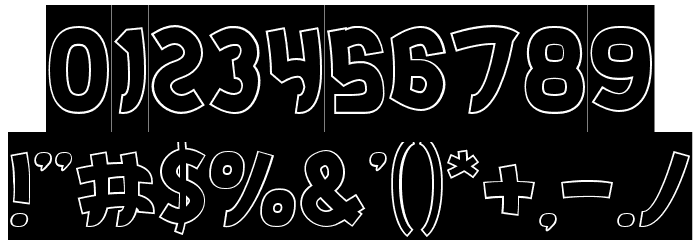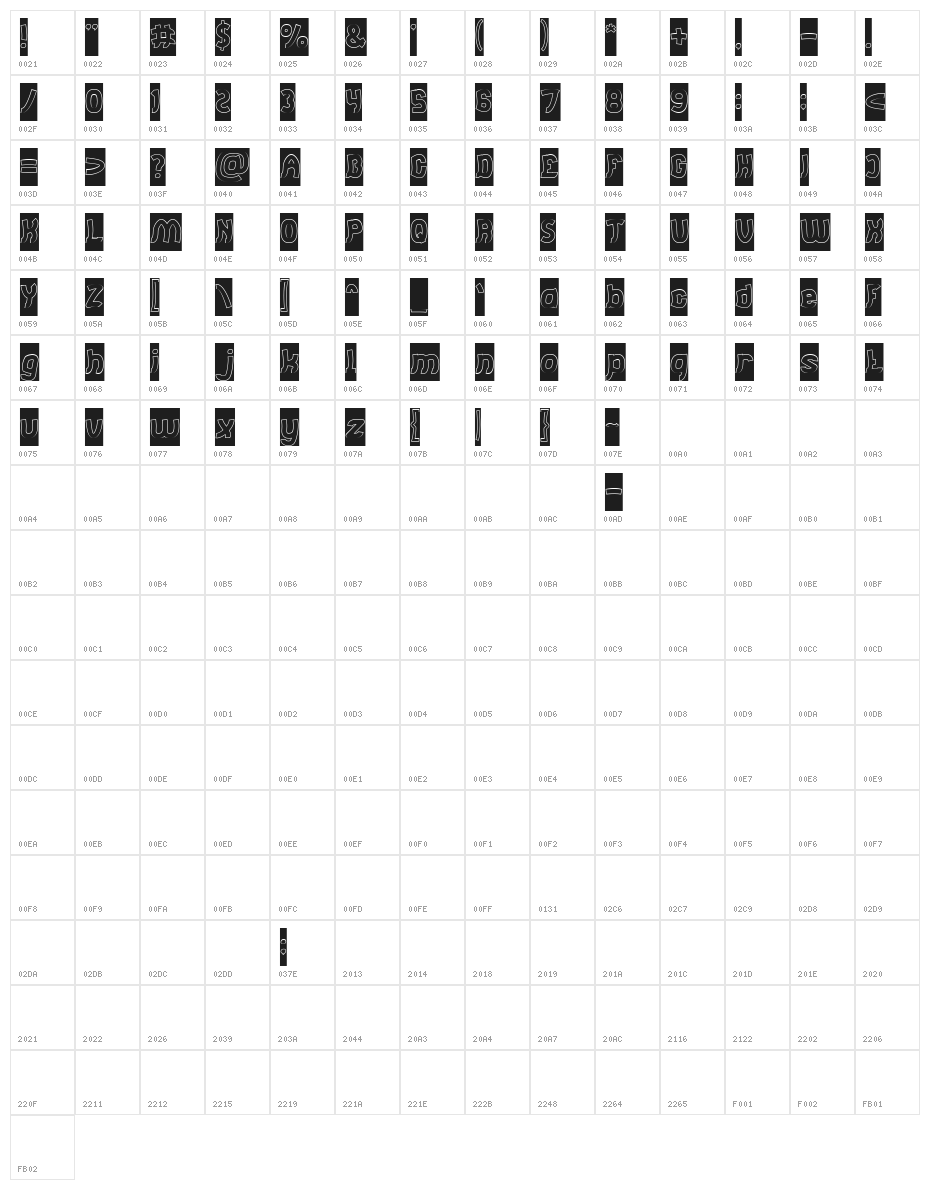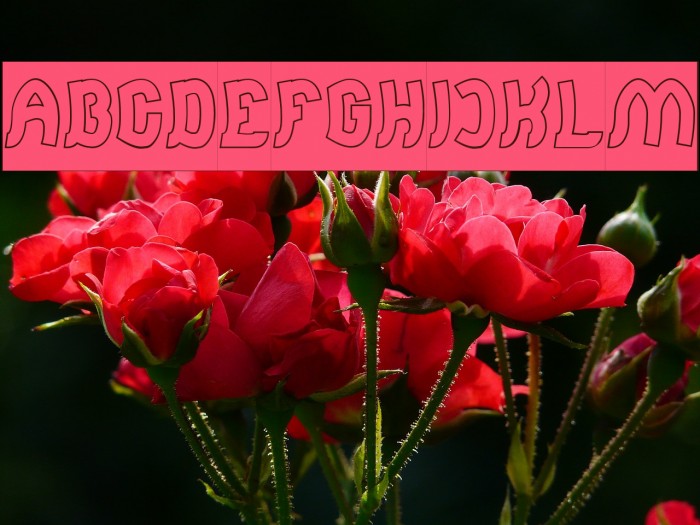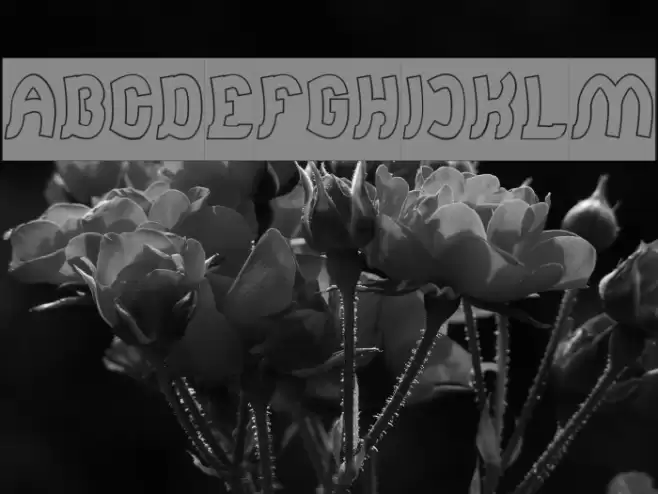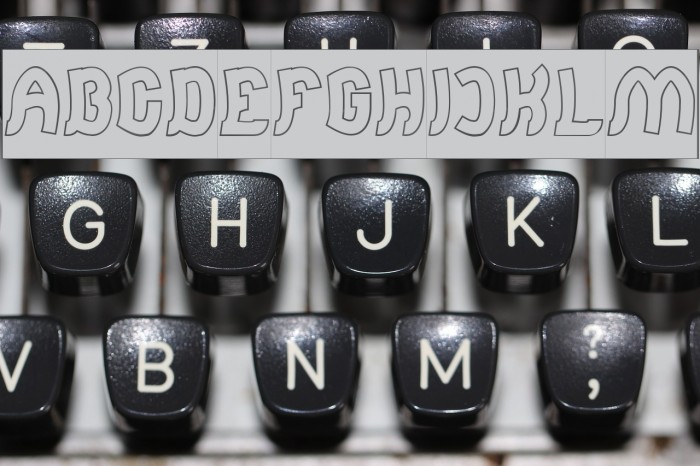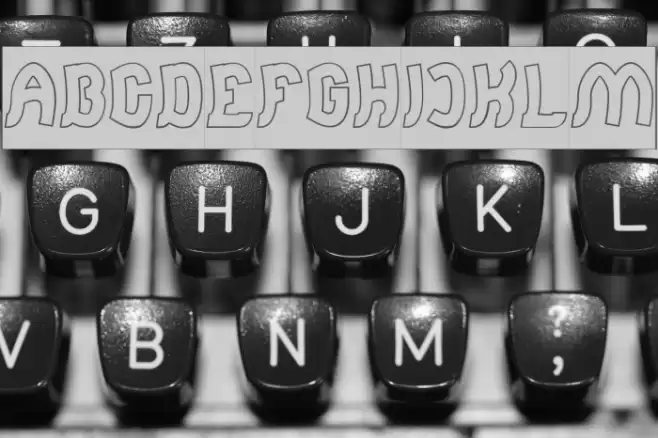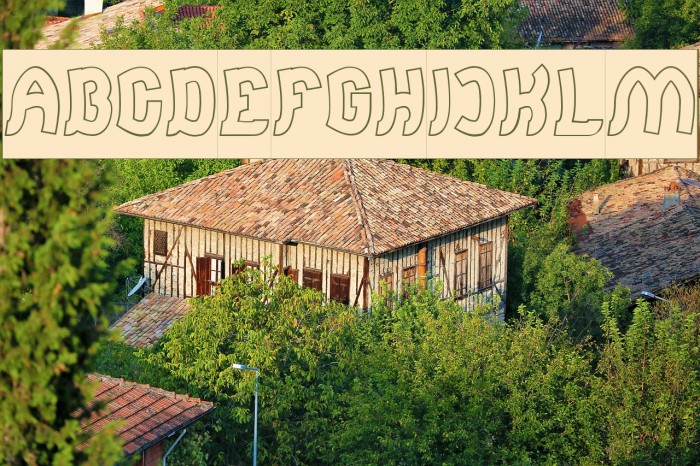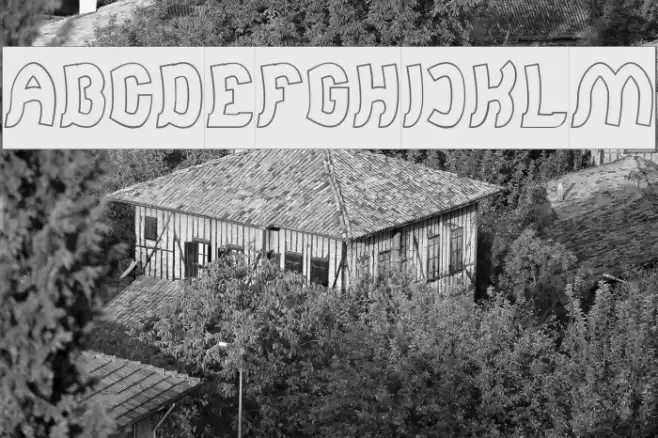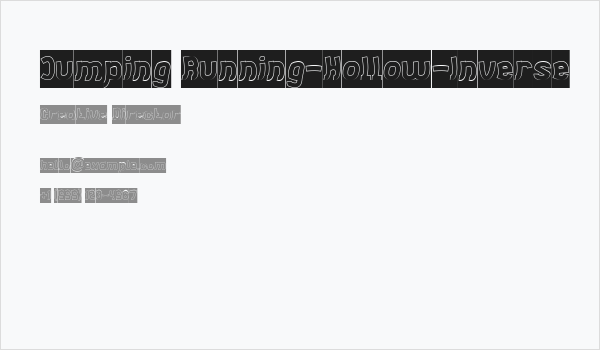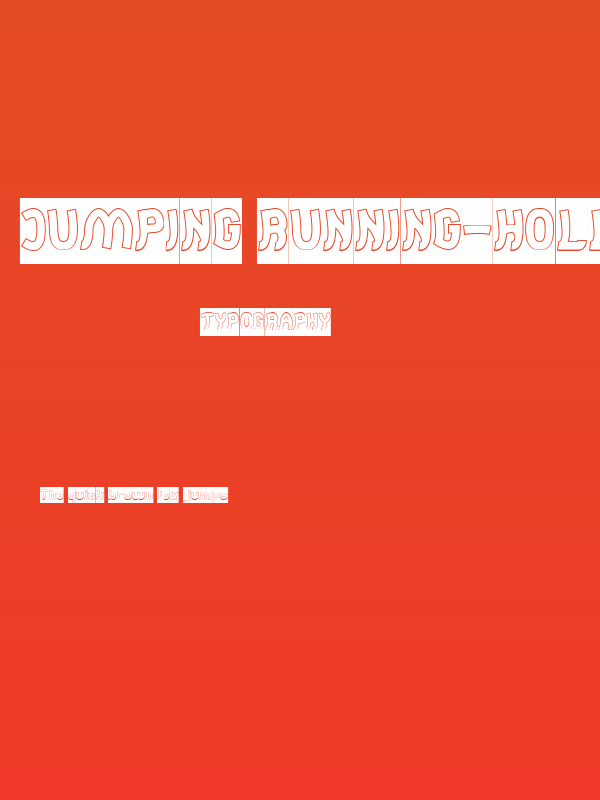
Jumping Running-Hollow-Inverse Font
Jumping Running-Hollow-Inverse Description
This font features a playful and dynamic style with hollow, inverse letterforms that appear to be in motion. The characters are bold and have a unique, flowing design that gives them a sense of movement and energy. The uppercase and lowercase letters maintain a consistent style, with rounded edges and a slightly irregular shape that adds to the whimsical feel. The numbers and special characters follow the same design principles, ensuring a cohesive look across all glyphs. This font is perfect for projects that require a fun and engaging aesthetic.
| Overall Style | Playful, Dynamic |
| Proposed Projects | Ideal for children's books, playful branding, event posters, and creative social media graphics. |